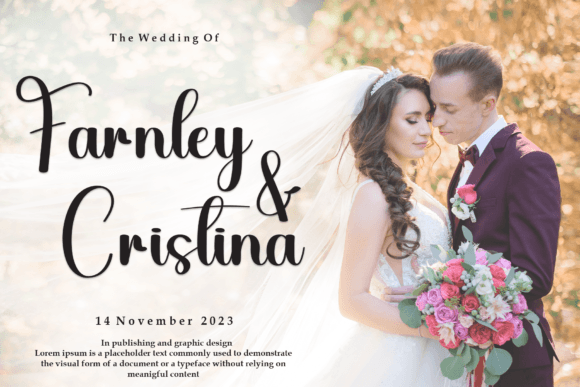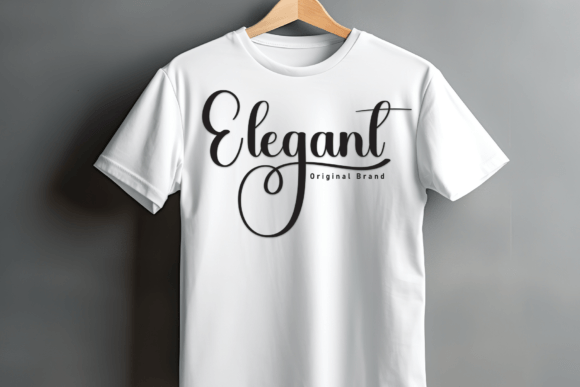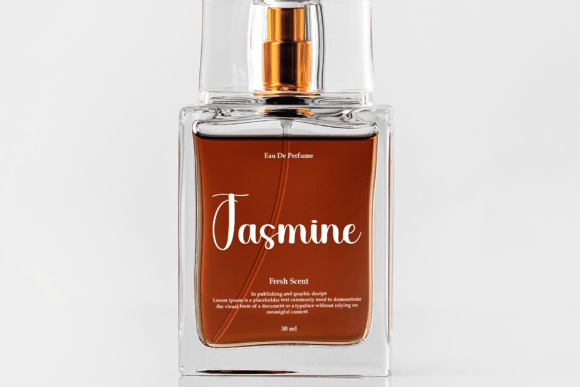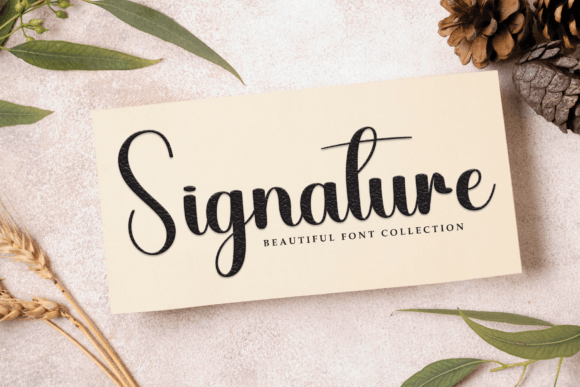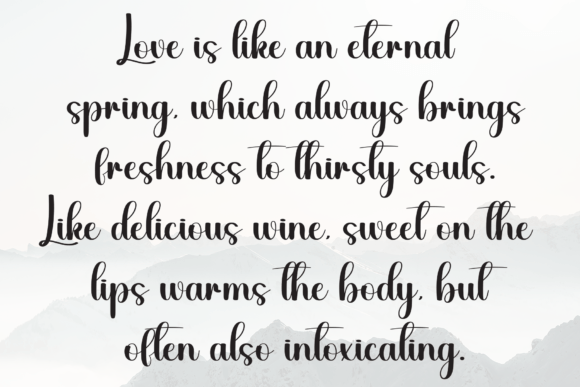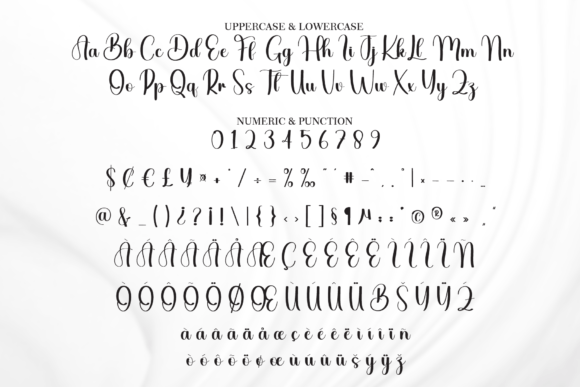
Introducing Daylan Font: The Romantic and Sweet Calligraphy Typeface
Are you a designer or crafter looking for a font that exudes romance and sweetness? Look no further than Daylan Font, a beautiful calligraphy typeface that is sure to capture your heart. With its casual yet elegant touch, Daylan Font is perfect for a variety of design projects, from wedding invitations and stationery to branding and packaging.
What is Daylan Font?
Daylan Font is a romantic and sweet calligraphy typeface with characters that dance along the baseline. Its unique and flowing design gives it a whimsical feel that’s perfect for creating beautiful and eye-catching designs. The font’s casual yet elegant touch makes it suitable for a wide range of projects, from formal events to everyday branding.
Key Features of Daylan Font
- Romantic and Sweet Design: Daylan Font’s design is characterized by its romantic and sweet feel, making it perfect for projects that require a touch of elegance and sophistication.
- Casual yet Elegant Touch: The font’s casual yet elegant touch makes it suitable for a wide range of projects, from formal events to everyday branding.
- Characters that Dance along the Baseline: Daylan Font’s unique design feature is its characters that dance along the baseline, giving it a whimsical feel that’s sure to capture your audience’s attention.
- Perfect for Calligraphy and Handwritten Designs: Daylan Font is perfect for calligraphy and handwritten designs, adding a touch of elegance and sophistication to your projects.
Uses of Daylan Font
Daylan Font is a versatile typeface that can be used for a variety of design projects, including:
- Wedding Invitations and Stationery: Daylan Font is perfect for creating beautiful and elegant wedding invitations and stationery.
- Branding and Packaging: The font’s casual yet elegant touch makes it suitable for branding and packaging projects that require a touch of sophistication.
- Signage and Displays: Daylan Font’s unique design makes it perfect for signage and displays that require a touch of elegance and whimsy.
- Digital and Print Media: The font is suitable for both digital and print media, making it a great choice for designers and crafters who work on a variety of projects.
Why Choose Daylan Font?
There are many reasons why you should choose Daylan Font for your design projects. Here are a few:
- Unique and Eye-catching Design: Daylan Font’s unique design makes it stand out from other typefaces, ensuring that your designs will grab your audience’s attention.
- High-quality and Professional: The font is of high quality and professional standard, making it perfect for commercial and personal projects.
- Easily Readable: Daylan Font is easily readable, making it suitable for body text and headlines.
- Supports Multiple Languages: The font supports multiple languages, making it a great choice for designers and crafters who work on international projects.
Tips for Using Daylan Font
Here are a few tips for using Daylan Font in your design projects:
- Use it for Headlines and Titles: Daylan Font is perfect for headlines and titles, adding a touch of elegance and sophistication to your designs.
- Pair it with Other Fonts: The font can be paired with other fonts to create a unique and eye-catching design.
- Experiment with Colors and Textures: Daylan Font looks great in a variety of colors and textures, so don’t be afraid to experiment and find the perfect combination for your design.
Daylan Font is a beautiful and elegant calligraphy typeface that’s perfect for designers and crafters who want to add a touch of romance and sweetness to their designs. With its casual yet elegant touch, unique design features, and versatility, Daylan Font is a great choice for a wide range of design projects. So why not give it a try and see how it can elevate your designs to the next level?